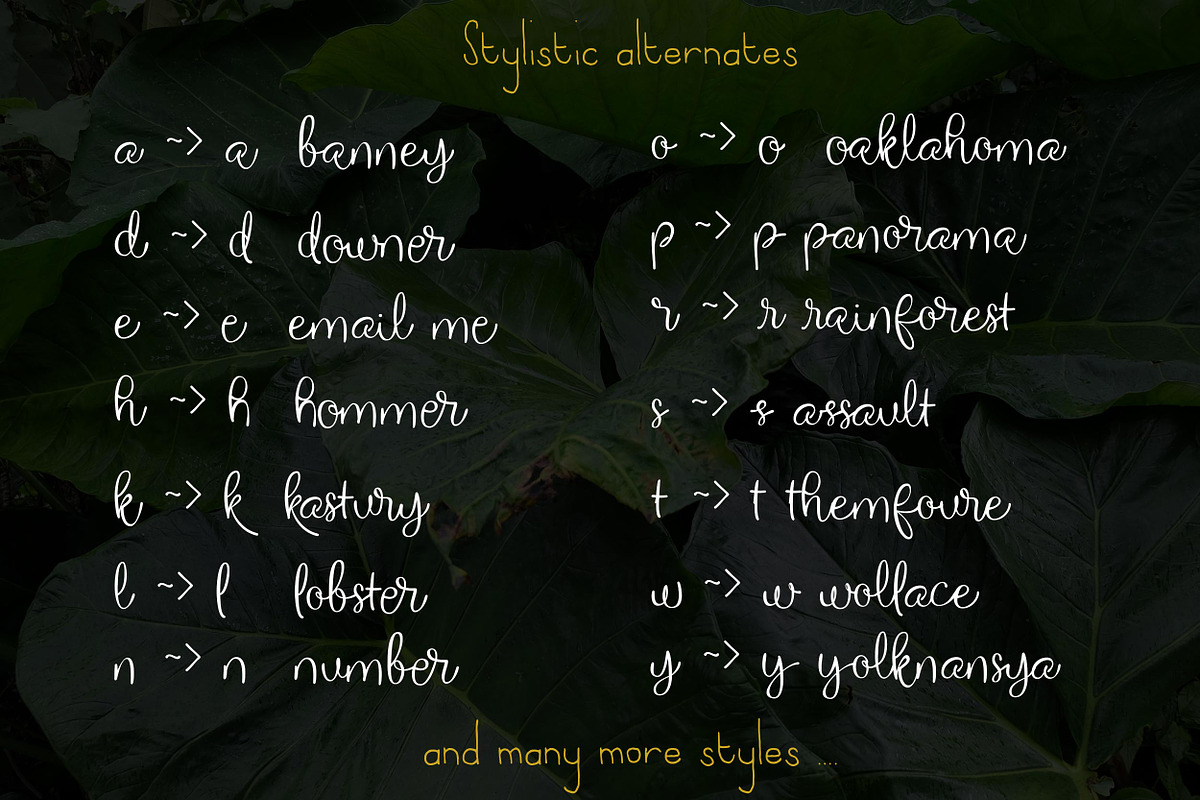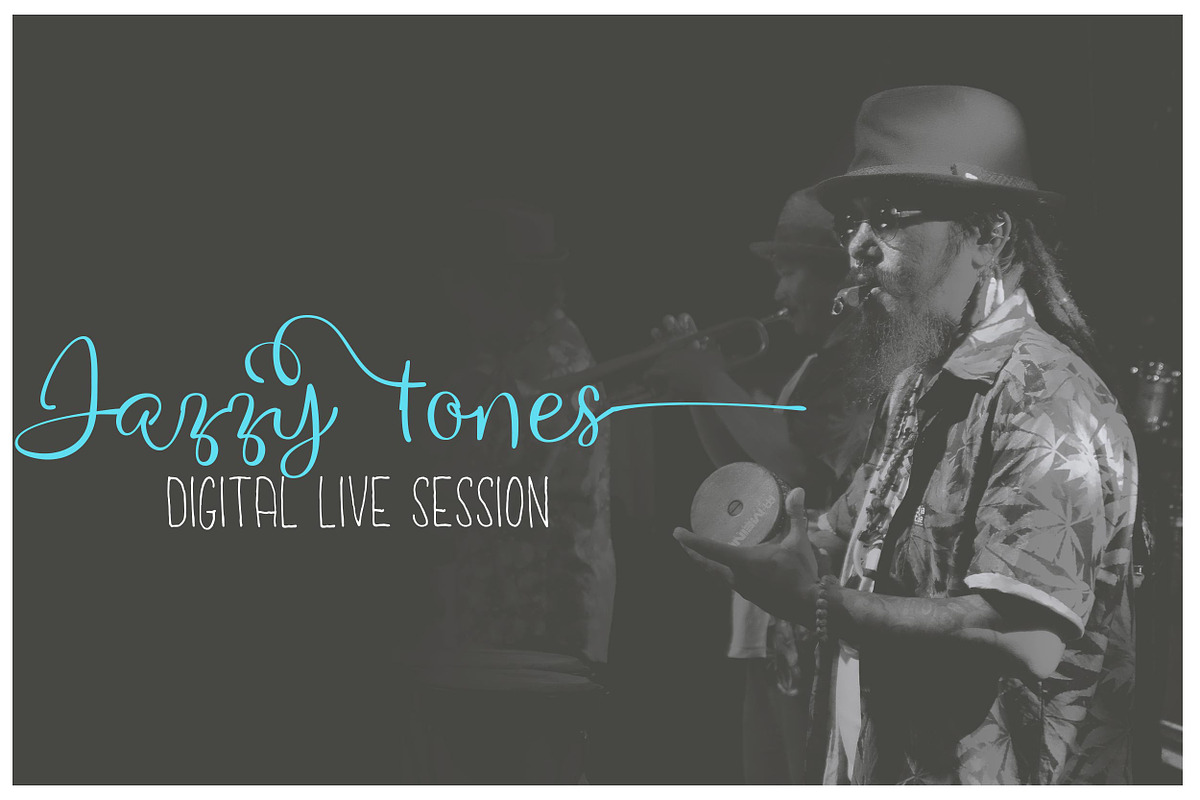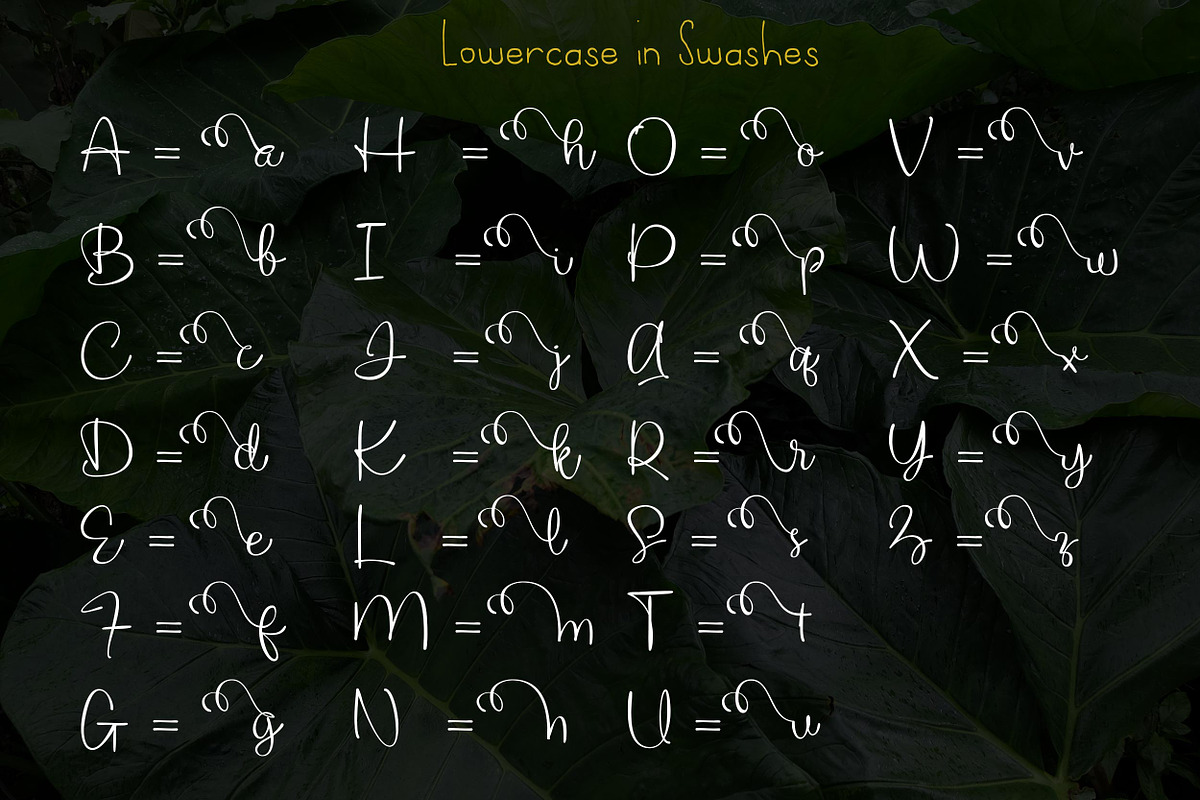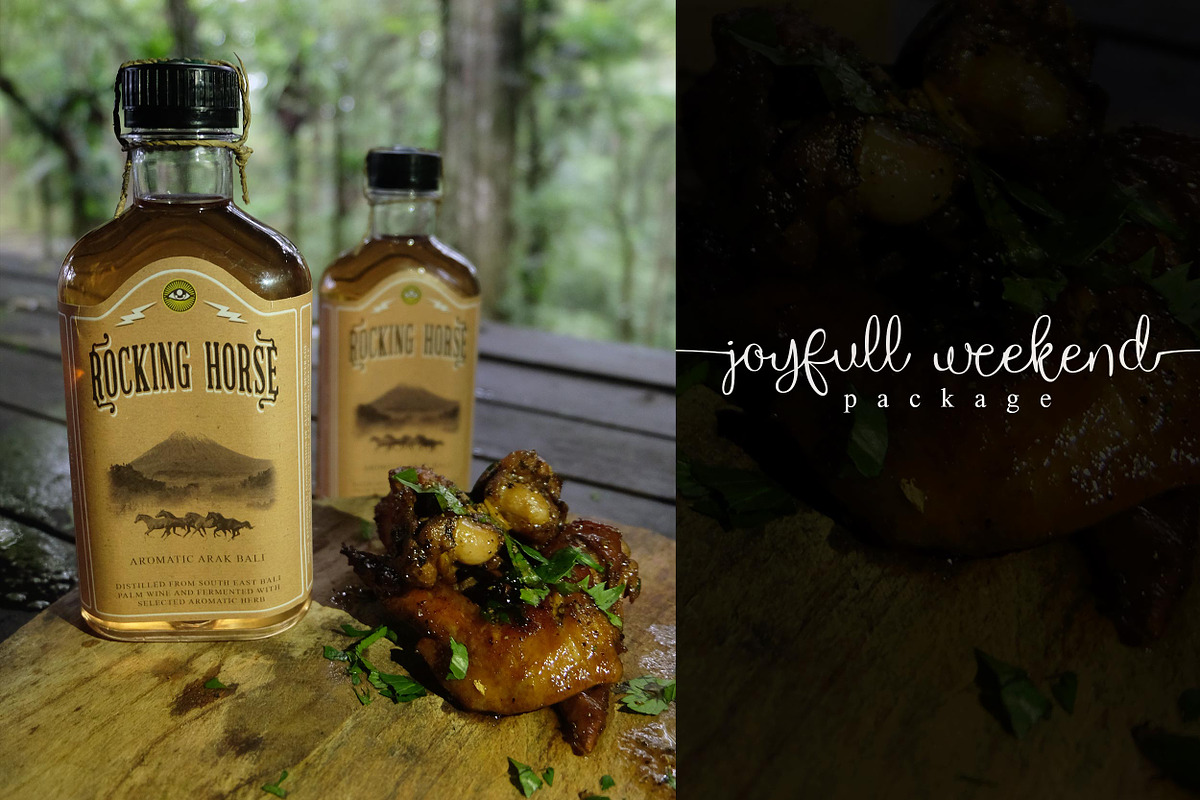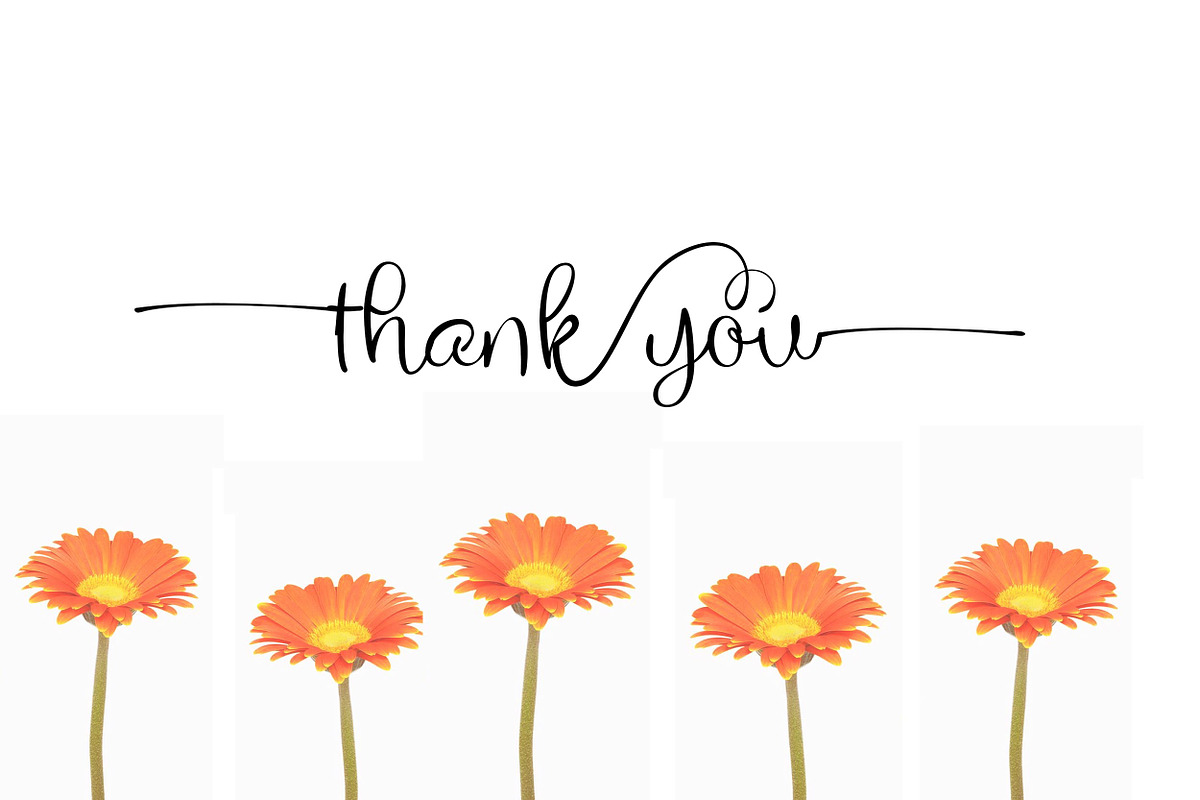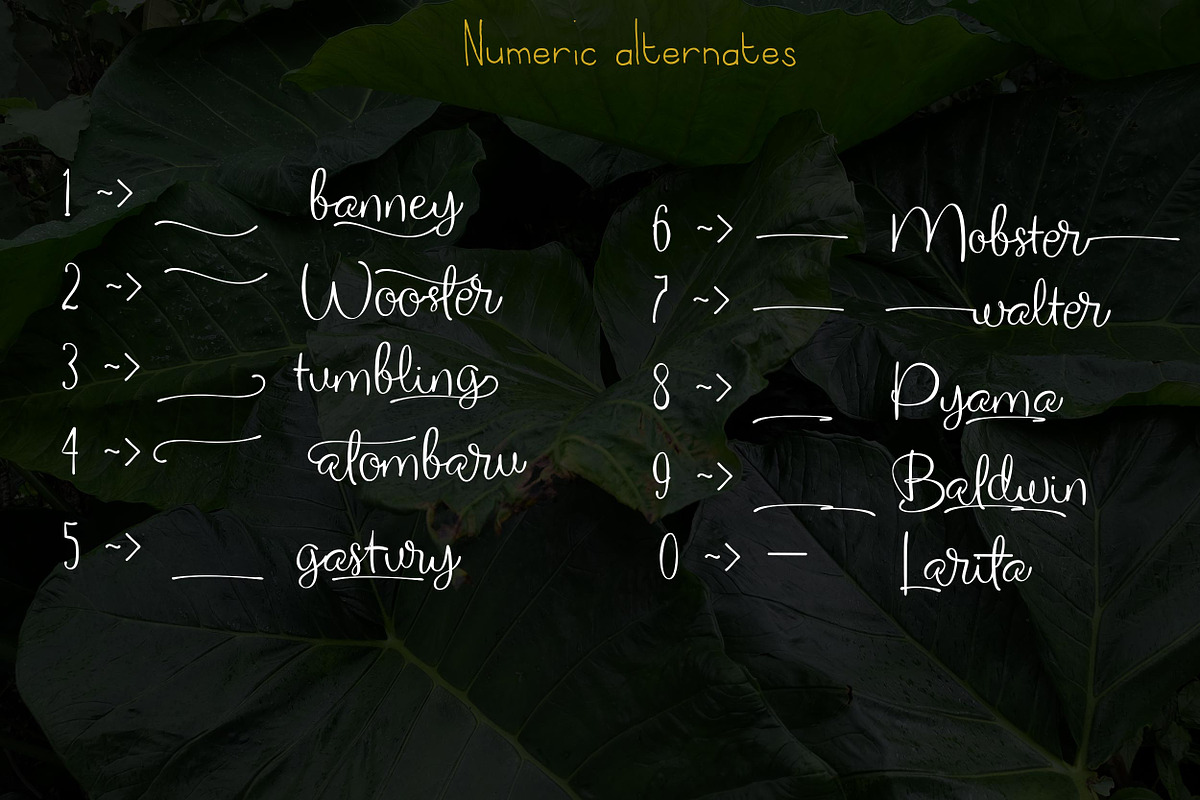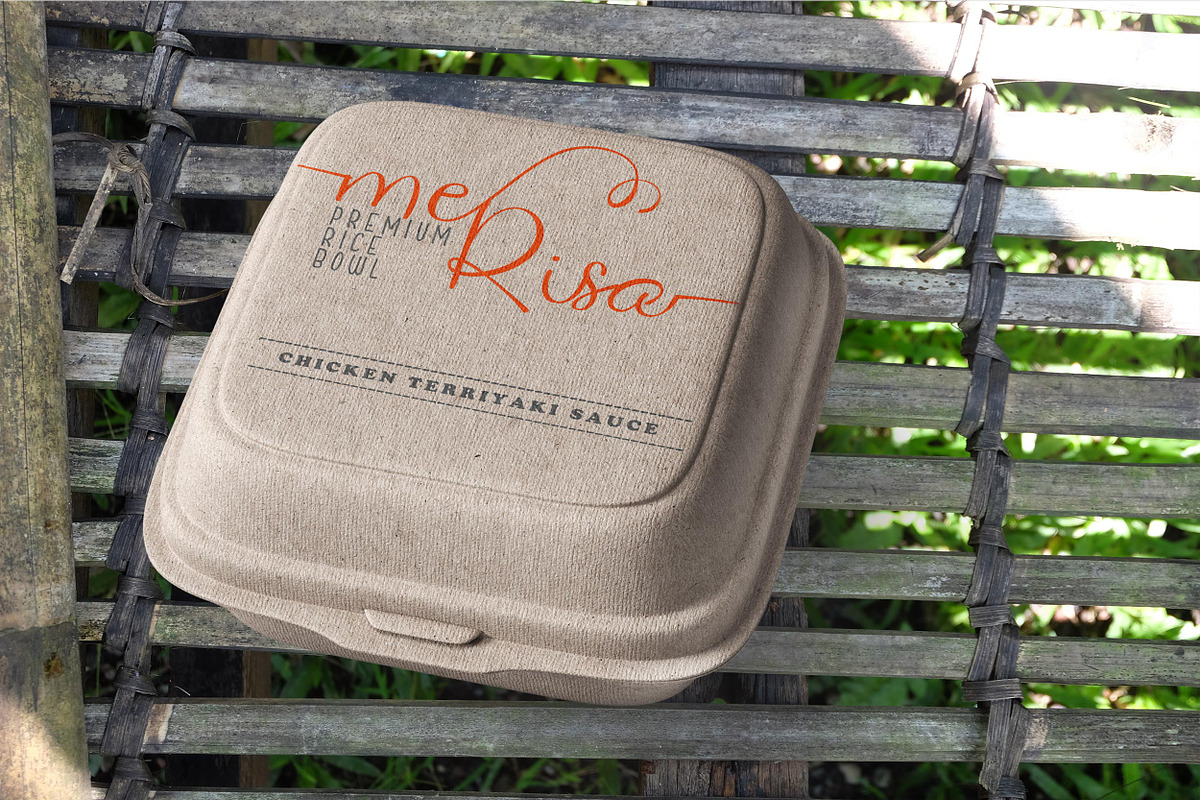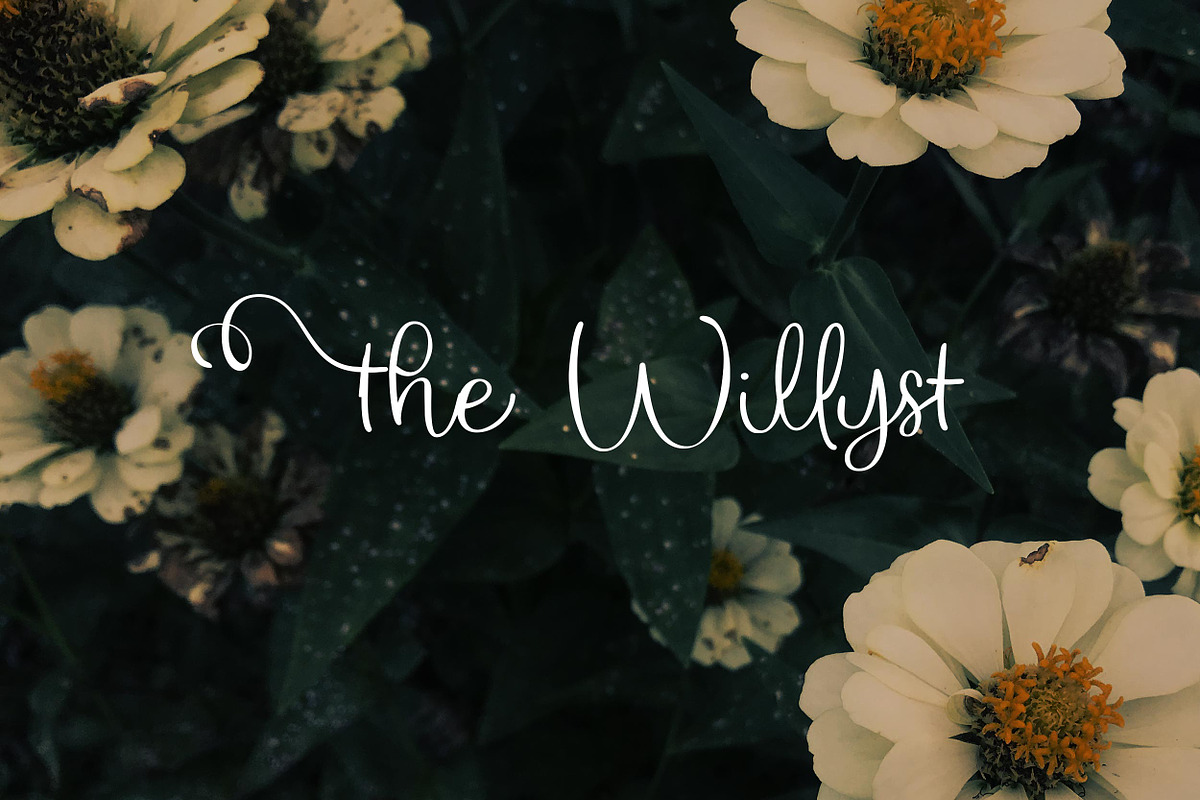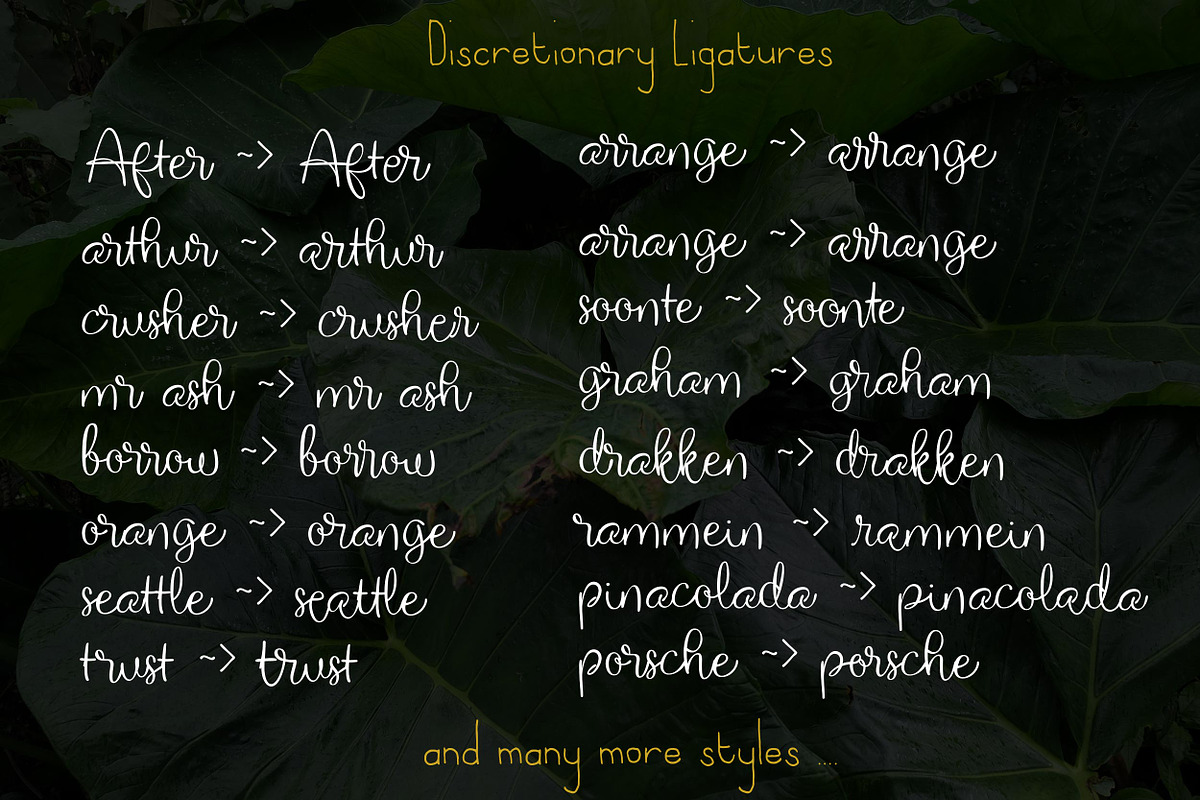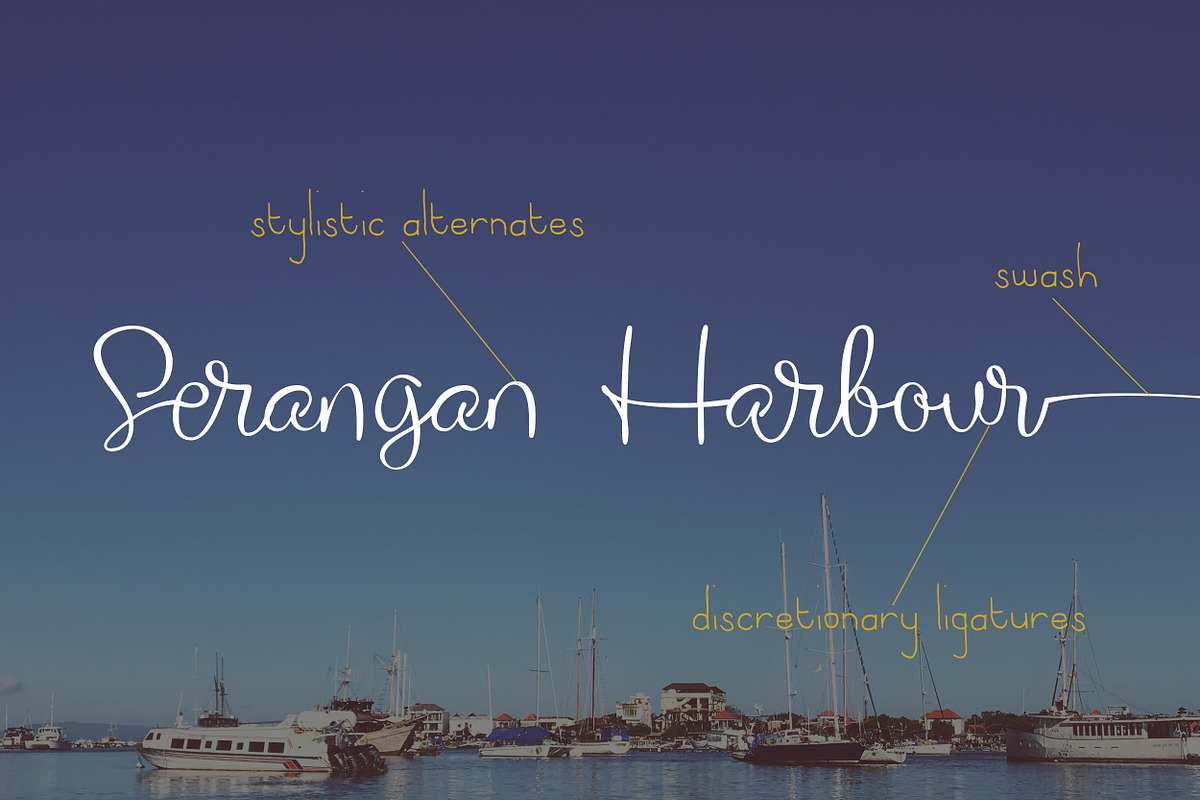
The Willyst
The Willyst is a modern calligraphy font that's casual but a little neat. It is more suitable for flyers, book covers, notes, image titles, presentations, wedding invitations, table markers, restaurant flyers or cafe names and logos.